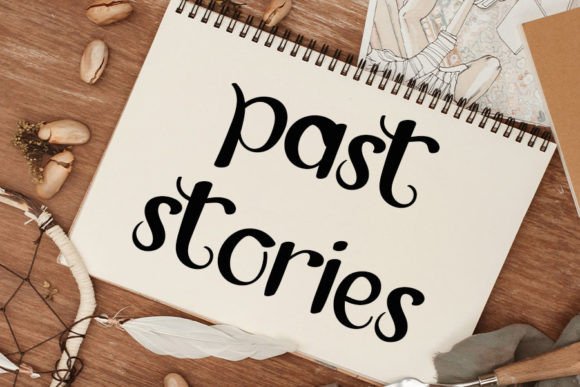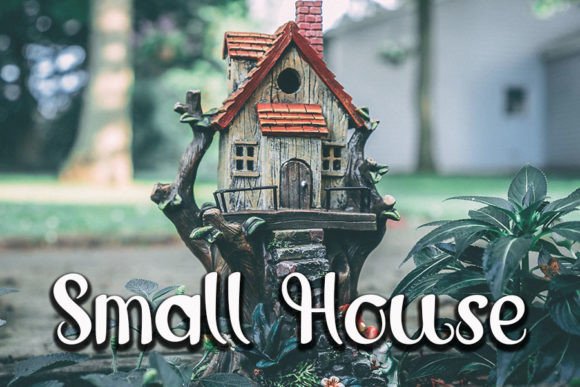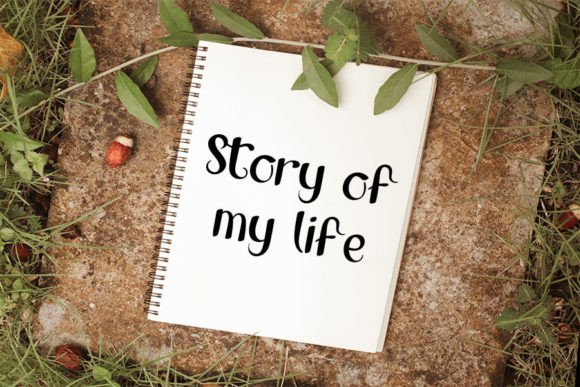
About My House Font
“My House” is introduced as a slim and delicate handwritten font, offering a dainty and joyful aesthetic. This font is specifically designed to be ideal for various applications, including writing wedding invitations, cards, or any design that requires a romantic and personalized touch.
The slim and delicate nature of “My House” suggests a refined and elegant quality, making it a suitable choice for projects that demand a touch of sophistication. Its slender strokes contribute to a graceful and stylish appearance.
The dainty and joyful characteristics of the font make it well-suited for romantic and celebratory designs. Whether it’s used for wedding invitations, love notes, or special occasion cards, “My House” brings a personalized and heartfelt touch.
The mention of its suitability for wedding invitations indicates that the font carries an inherent romantic quality, making it perfect for conveying the sentiment of love and celebration.
In summary, “My House” is a slim and delicate handwritten font that promises to bring a touch of elegance and joy to your designs. Its romantic and personalized nature makes it particularly fitting for wedding-related projects and other designs where a refined and heartfelt aesthetic is desired.